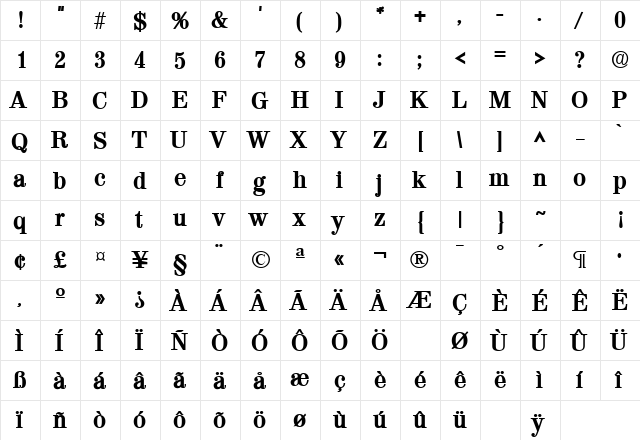
ValenciaLH Bold
Design Context for ValenciaLH Typeface
ValenciaLH is a composed and adaptable typeface that performs quietly and consistently across a wide range of design contexts. Its bold stroke weight gives it real presence on the page.